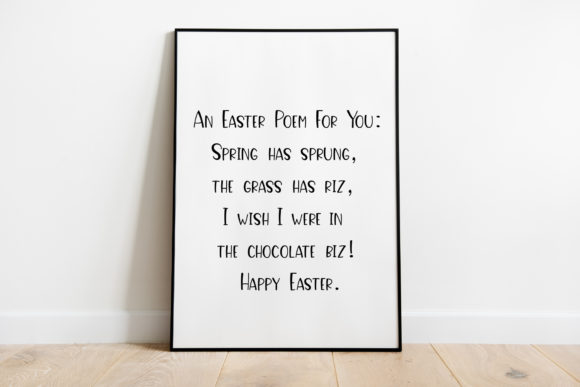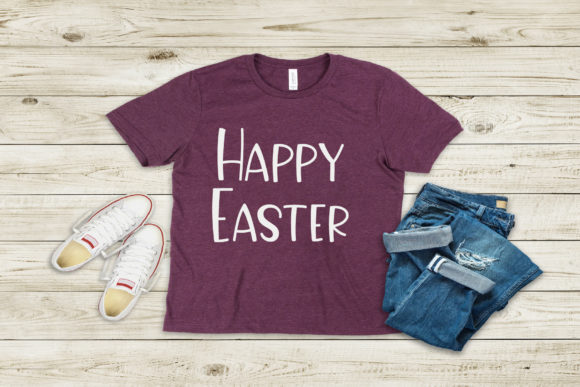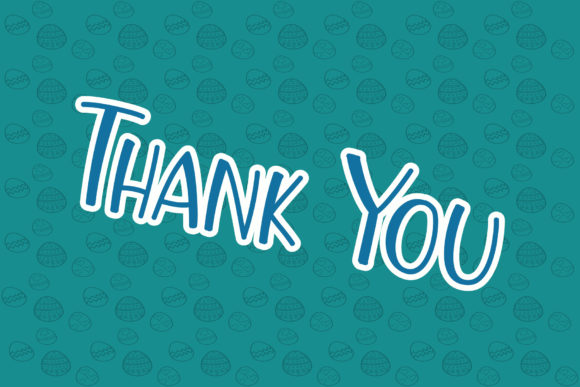
Bunny Boy Font: The Ultimate Choice for Cute and Playful Designs
Are you looking for a font that can add a touch of childlike playfulness to your designs? Look no further than the Bunny Boy Font! This adorable display font is perfect for creating fun and personalized designs for kids and school projects. In this article, we’ll explore the features and benefits of the Bunny Boy Font and show you how to get the most out of this versatile font.
What is Bunny Boy Font?
Bunny Boy Font is a cute and playful display font designed to bring a smile to your face. Its childlike charm makes it perfect for designs that require a personal touch, such as Valentine’s day cards, thank you cards, logos, greeting cards, and more. The font’s unique and quirky style is sure to capture the attention of your audience and leave a lasting impression.
Features of Bunny Boy Font
• Cute and Playful Design: The Bunny Boy Font features a unique and adorable design that’s sure to delight kids and adults alike.
• Childlike Charm: The font’s playful style is reminiscent of childhood memories, making it perfect for designs that require a personal touch.
• Versatile: The Bunny Boy Font can be used for a wide range of designs, from Valentine’s day cards to logos and greeting cards.
• Easy to Read: Despite its playful design, the font is easy to read, making it perfect for designs that require a clear message.
Benefits of Using Bunny Boy Font
So, why should you choose the Bunny Boy Font for your designs? Here are just a few benefits of using this adorable font:
• Adds a Personal Touch: The Bunny Boy Font adds a personal touch to your designs, making them more relatable and engaging.
• Perfect for Kids and School Projects: The font’s playful style makes it perfect for kids and school projects, such as posters, flyers, and presentations.
• Great for Valentine’s Day and Other Celebrations: The font’s cute design makes it perfect for Valentine’s day cards, Easter eggs, and other celebrations.
Design Ideas Using Bunny Boy Font
The Bunny Boy Font is versatile and can be used for a wide range of designs. Here are a few ideas to get you started:
• Valentine’s Day Cards: Create adorable Valentine’s day cards for kids and adults.
• Thank You Cards: Create personalized thank you cards for special occasions.
• Logos: Create fun and playful logos for kids’ businesses or organizations.
• Greeting Cards: Create greeting cards for Easter, Christmas, and other celebrations.
• School Projects: Use the Bunny Boy Font for school projects, such as posters, flyers, and presentations.
In conclusion, the Bunny Boy Font is a cute and playful display font that’s perfect for adding a touch of childlike charm to your designs. Its versatility and ease of use make it perfect for designers and crafters of all levels. Whether you’re creating Valentine’s day cards, logos, or school projects, the Bunny Boy Font is sure to bring a smile to your face and make your designs stand out.